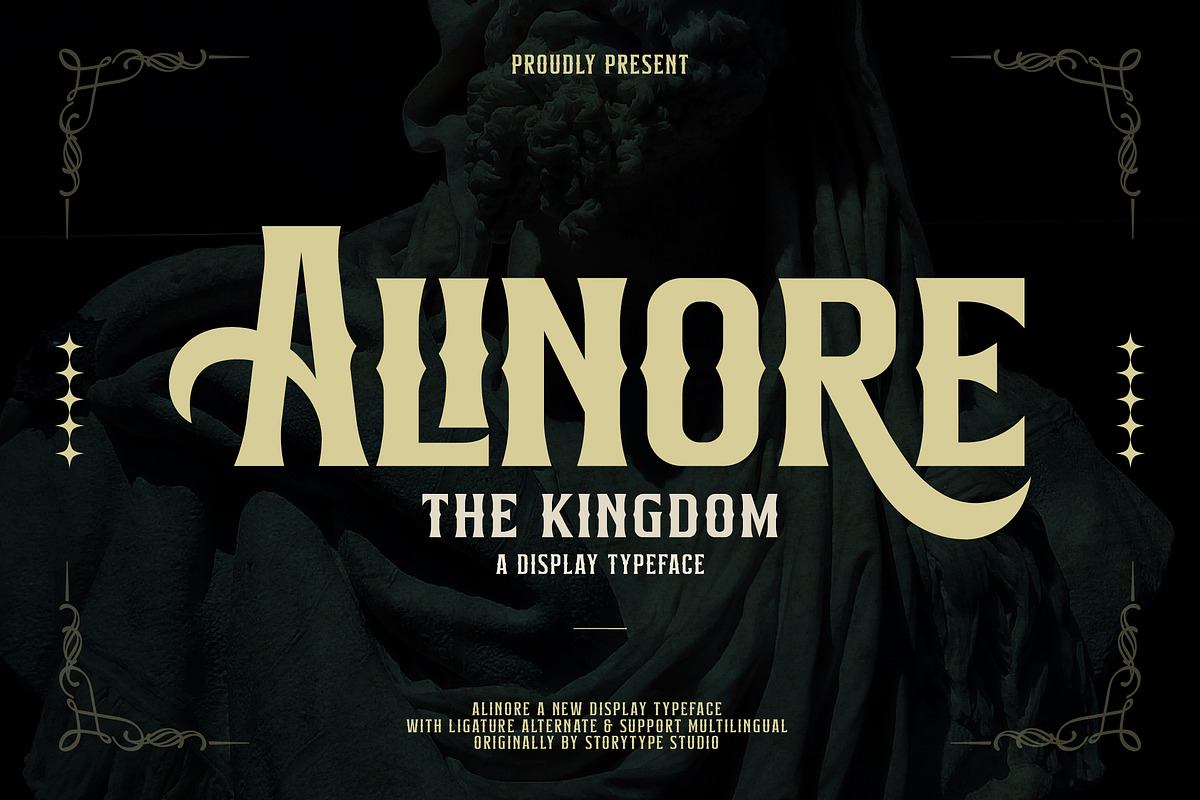
Alinore Display Typeface Font LS Free Download is a bold and artistic display font designed for high-impact projects. With its unique, striking letterforms and modern appeal, Alinore is perfect for branding, editorial headlines, product packaging, posters, and any project where you want to make a statement.
Its carefully crafted structure blends contemporary elegance with creative flair, making it suitable for both modern and retro-inspired designs. Whether you're designing a logo, website, or promotional materials, Alinore brings style and attention-grabbing character to your typography.